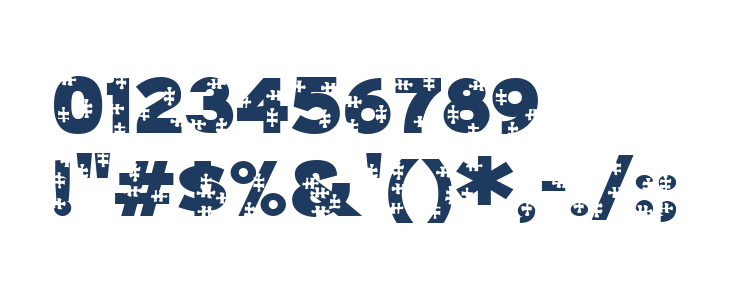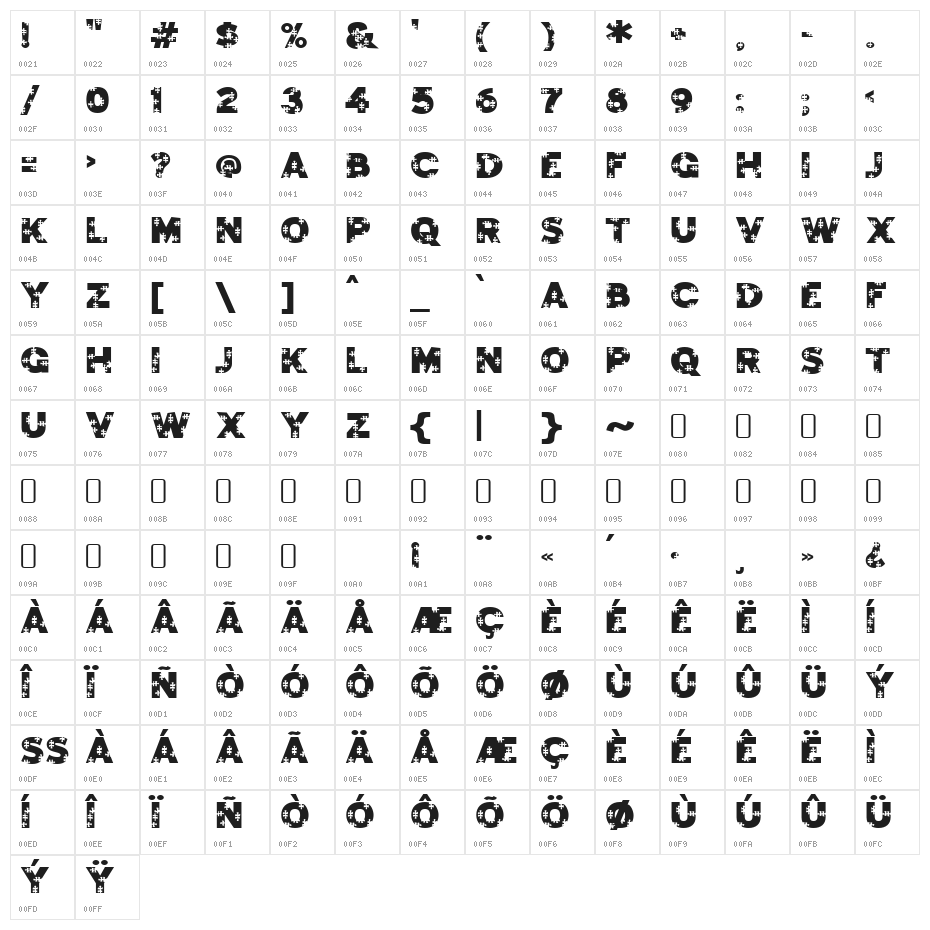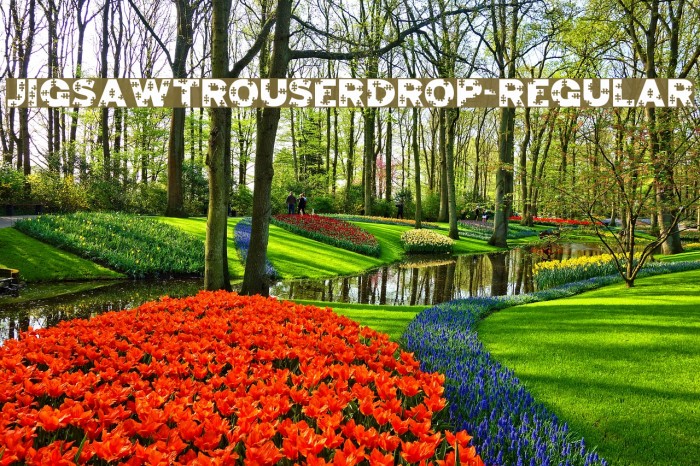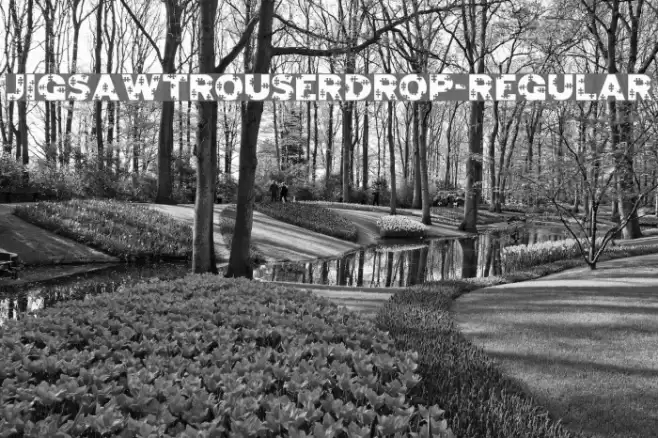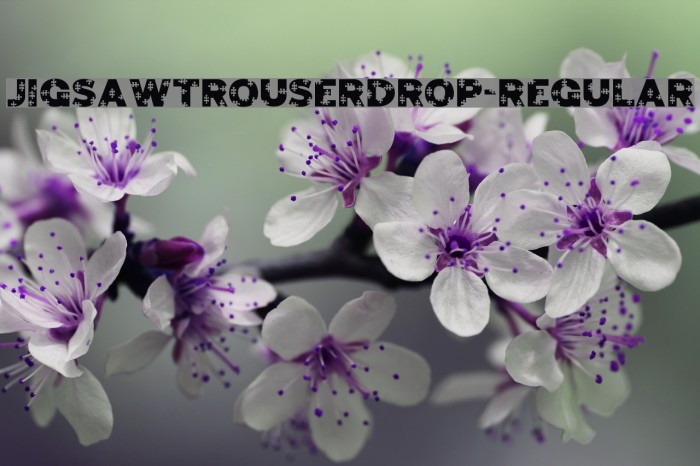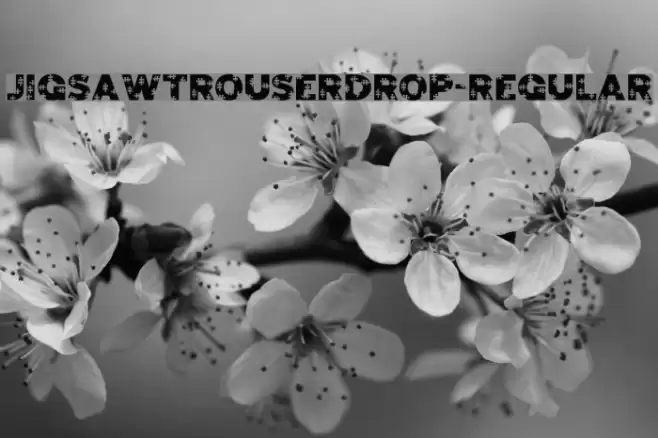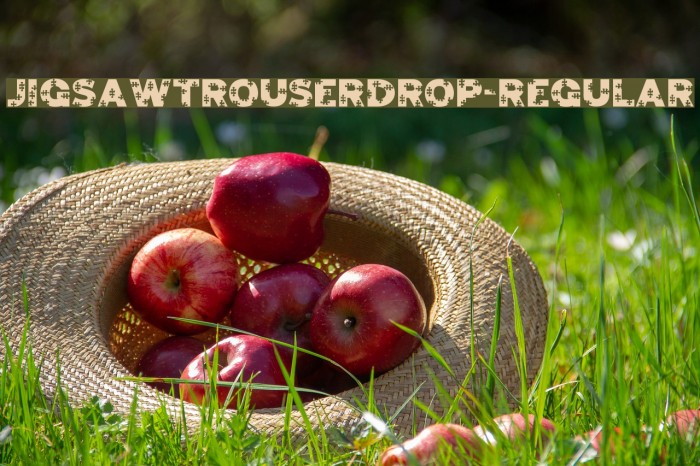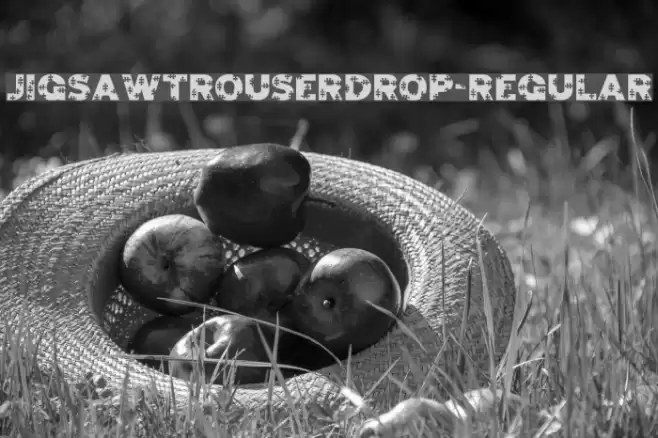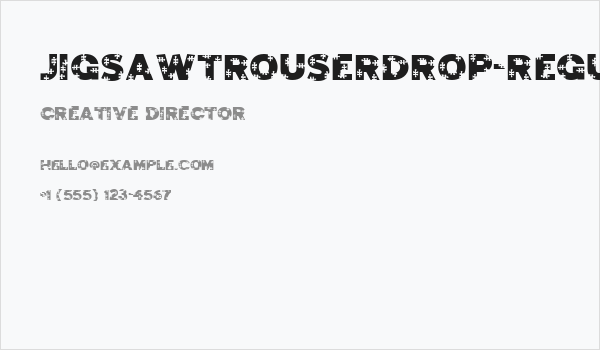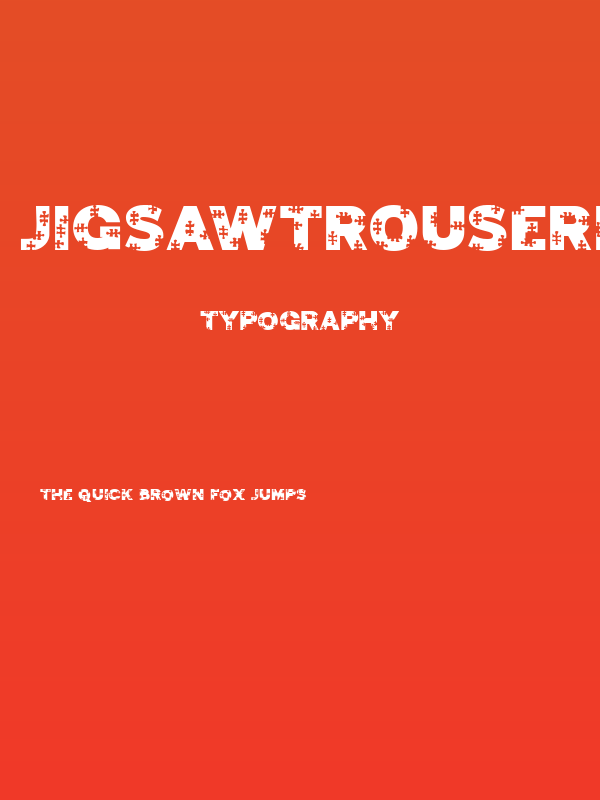
JigsawTrouserdrop-Regular Font
JigsawTrouserdrop-Regular Description
This font features a bold, playful design with a jigsaw puzzle pattern integrated into each character. The letters are uppercase and lowercase, with numbers and special characters, all maintaining a consistent puzzle piece motif. The style is eye-catching and unique, making it ideal for creative projects that require a distinctive look. The boldness of the font ensures it stands out, while the puzzle design adds an element of fun and intrigue. The characters are evenly spaced, providing a balanced appearance across different text sizes.
| Overall Style | Playful, Creative |
| Proposed Projects | Ideal for children's books, playful branding, puzzles, and educational materials. |